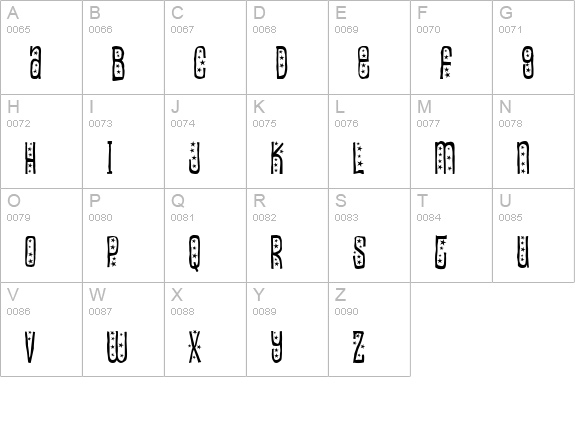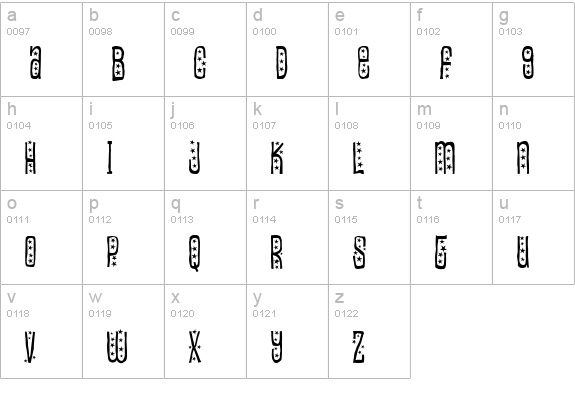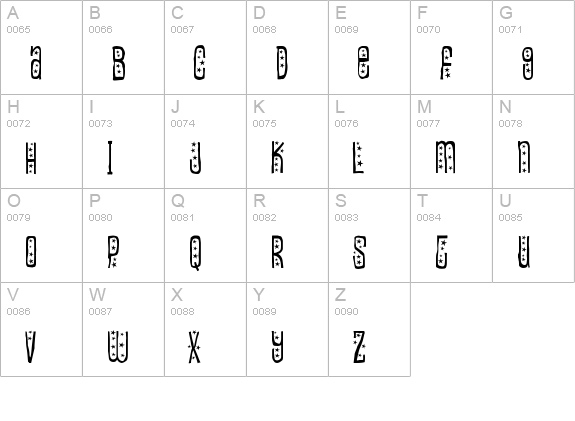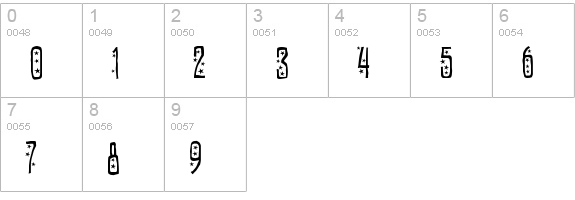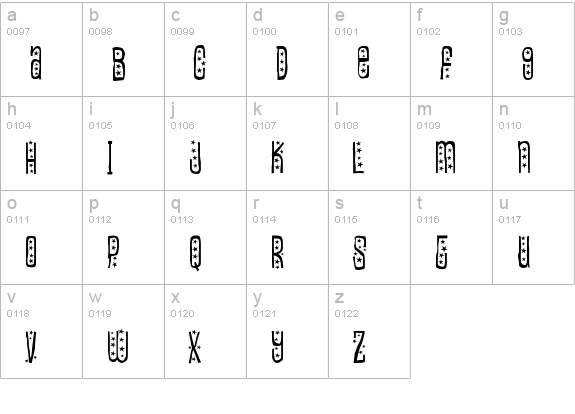
Easily amused Font Details
Introducing the Easily Amused Font, a remarkable and whimsical typeface that is sure to bring a smile to your face. This font is designed for those who appreciate the joy and simplicity of life, and who find delight in the everyday moments that make us laugh. With its playful curves and cheerful demeanor, Easily Amused Font adds a touch of lightheartedness to any project. But what makes Easily Amused Font even more special is that it is completely free! That's right, you can enjoy this delightful font without spending a dime. It is freely available to download at FontsMarket.com, a renowned platform for high-quality fonts. Whether you're designing a greeting card, creating a logo, or crafting a fun advertisement, Easily Amused Font will add a sense of fun and whimsy to your work. Its versatility allows it to be used in a variety of applications, making it a perfect choice for both personal and commercial projects. The charming and carefree nature of Easily Amused Font is reflected in its letterforms. Each character is meticulously crafted to exude a sense of playfulness, with subtle details that bring them to life. From the quirky curves to the artful swirls, every letter is a testament to the joy and laughter that can be found in the simplest of things. So go ahead and give your designs a touch of whimsy with Easily Amused Font. Download it for free at FontsMarket.com and let the fun begin. Whether you're creating something for yourself or for others to enjoy, this font is sure to bring a smile to everyone's face. Embrace the lightheartedness and laughter that Easily Amused Font brings, and watch as your designs come to life with a newfound sense of joy.